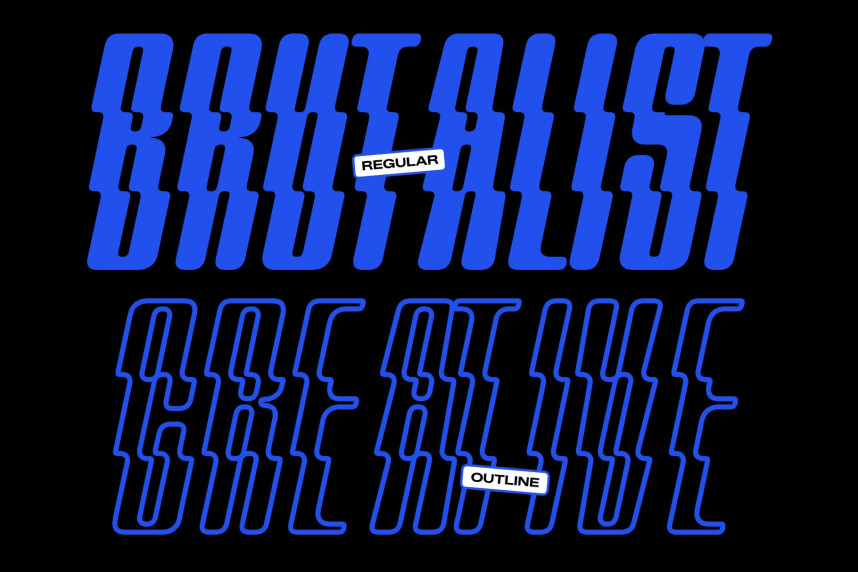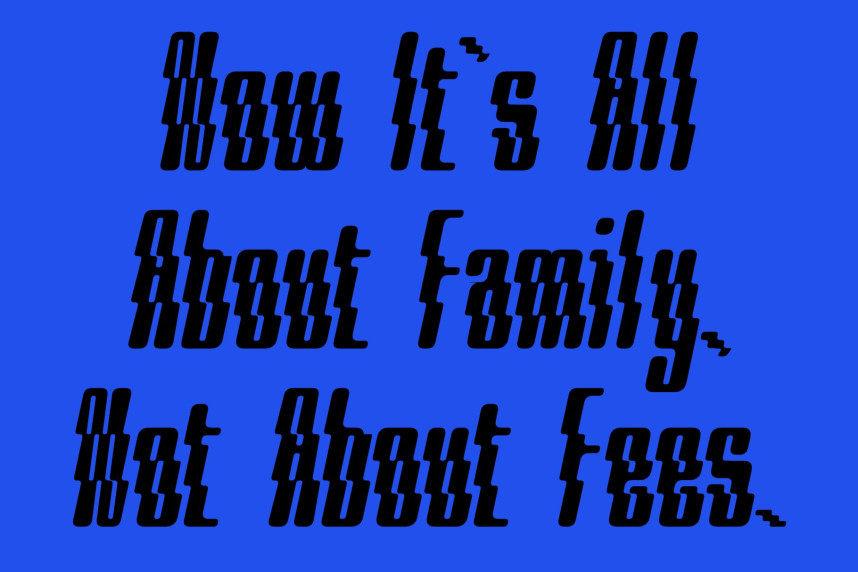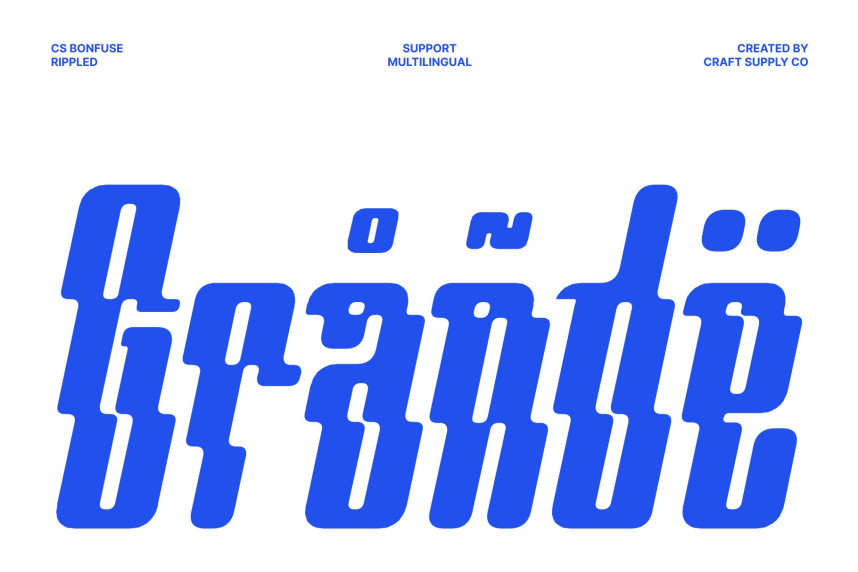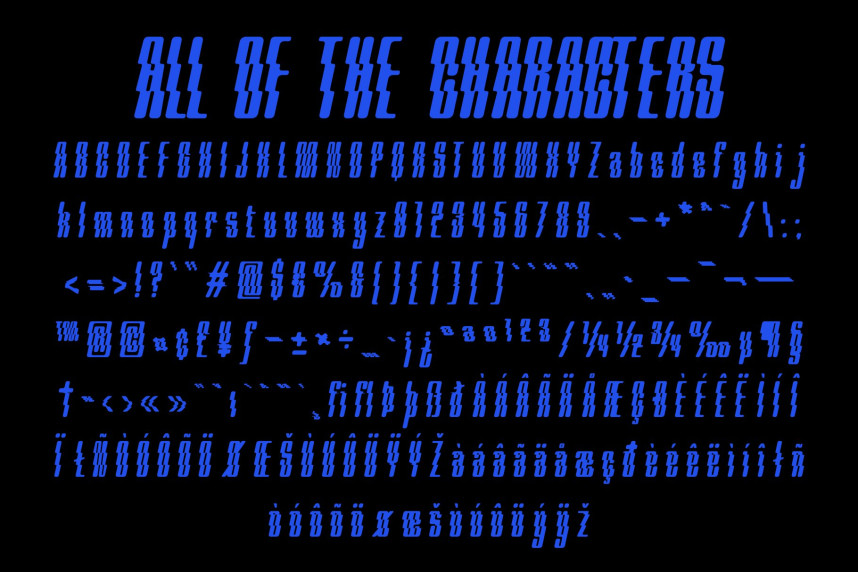
CS Bonfuse Rippled Font
CS Bonfuse Rippled Font – Bold Condensed Sans Serif Font: Where Industrial Strength Meets Fluid Wave Motion
Industrial Precision with Powerful Presence
This is a bold condensed sans serif display font built with industrial strength and commanding visual impact. Its structured geometry, sharp precision, and compact proportions create a technical and masculine personality that feels confident, powerful, and highly functional. Designed for maximum visibility, its condensed form delivers strong visual authority while maintaining a clean and organized appearance.